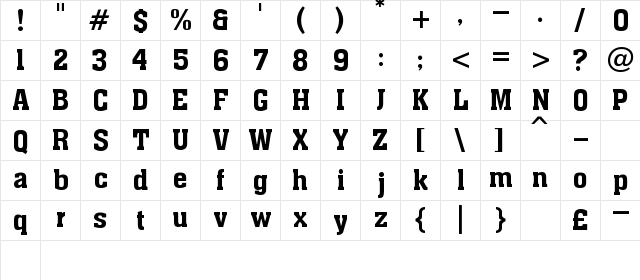
Pancho Regular
Design Context for Pancho Typeface
Pancho offers clean, dependable letterforms without strong stylistic allegiance, making it a practical choice for designers who need flexibility.